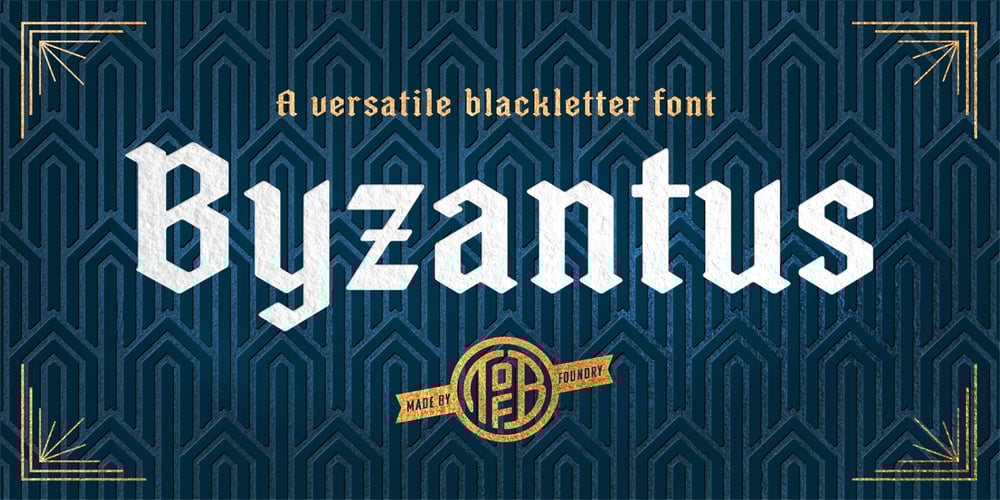
Byzantus Font Family was designed by Eric Stevens and published by Tower of Babel. Byzantus contains 1 styles and family package options. Byzantus is a versatile blackletter-inspired font that was designed primarily with legibility in mind. Byzantus can be used in many situations that could use a bit of style, whether it be an informal concert poster, or a more formal wedding invitation. Its versatility allows Byzantus to shine in many applications. Byzantus also works well not only as an uppercase/lowercase font, but also as an all caps font.